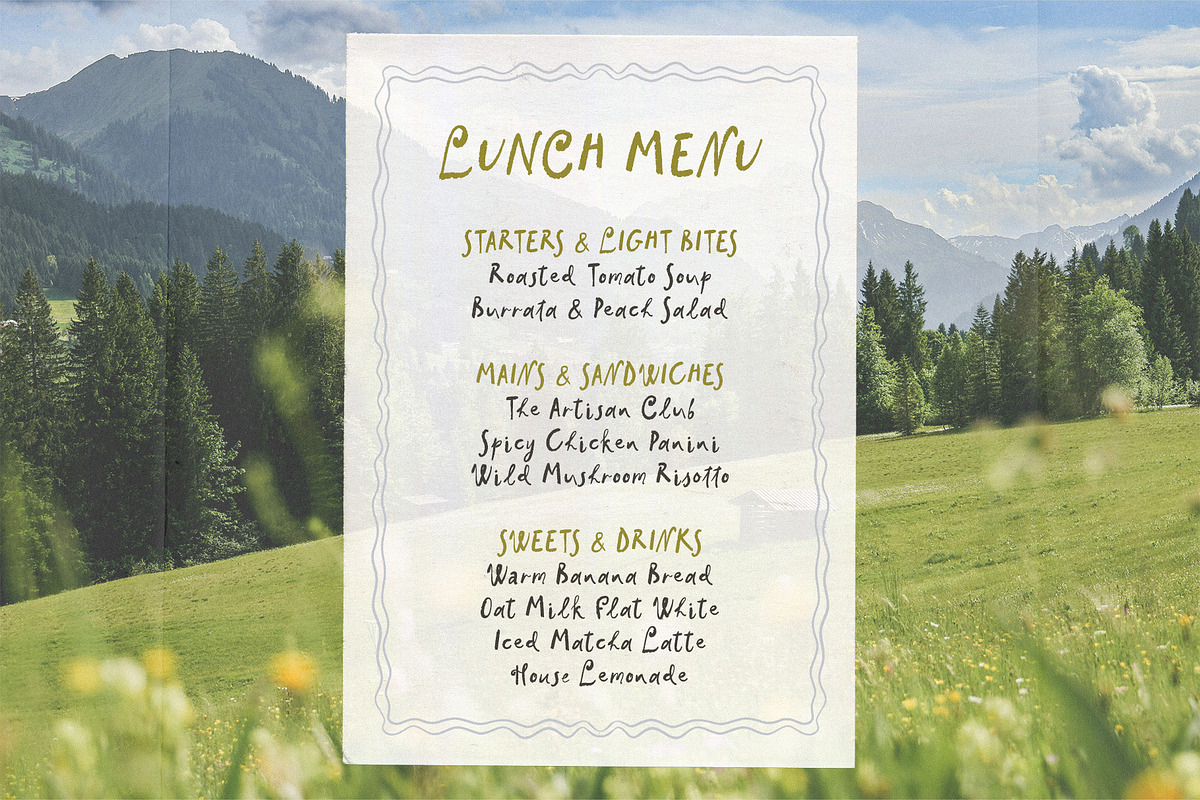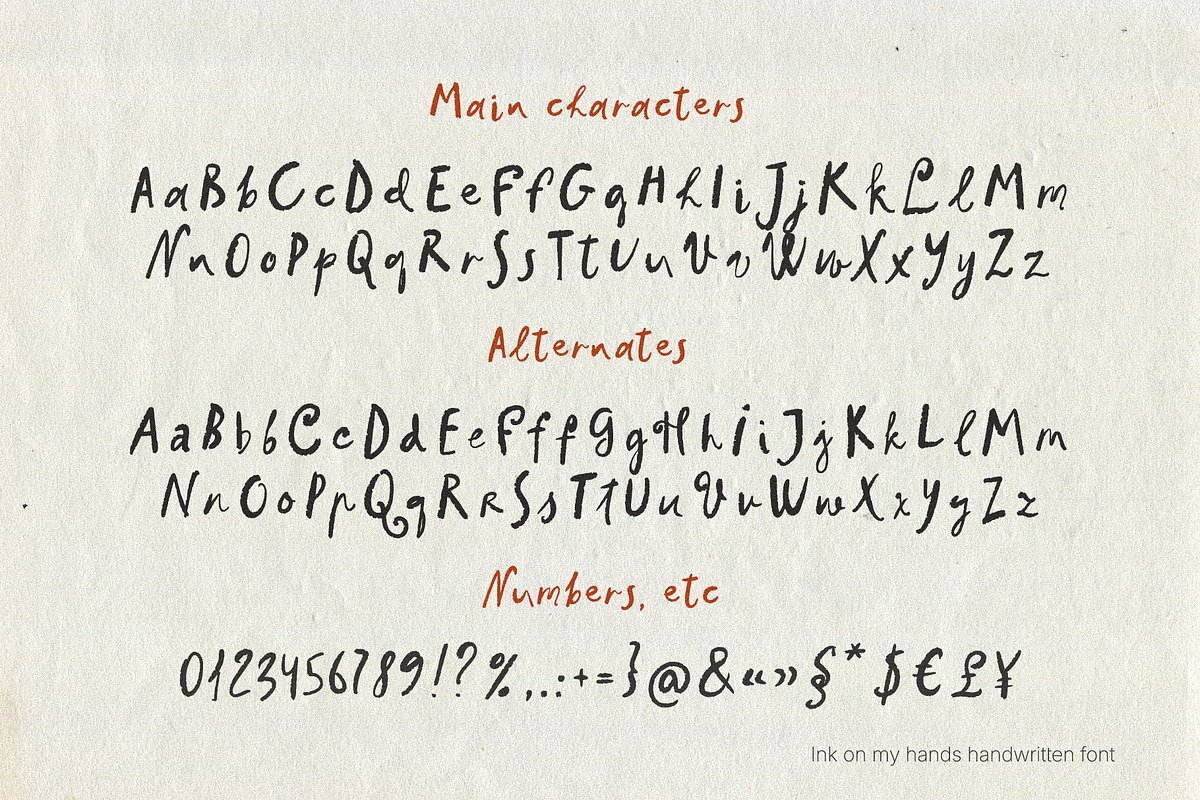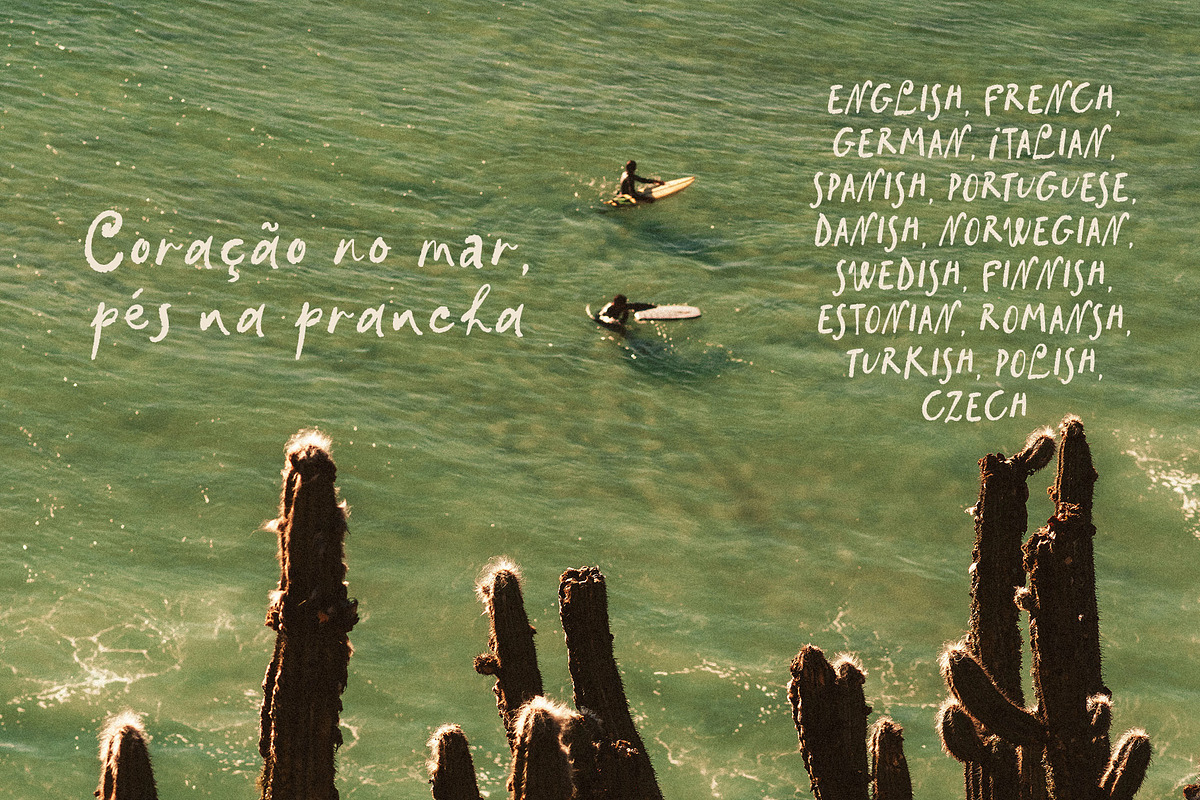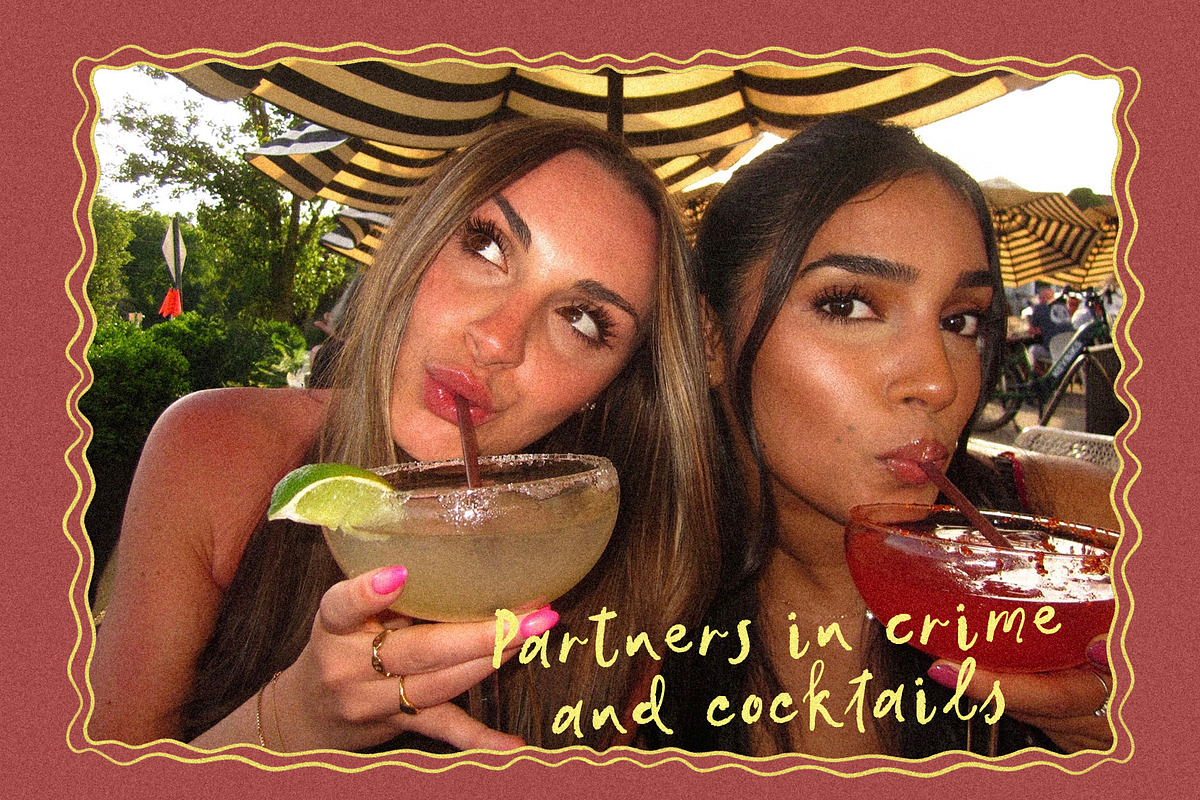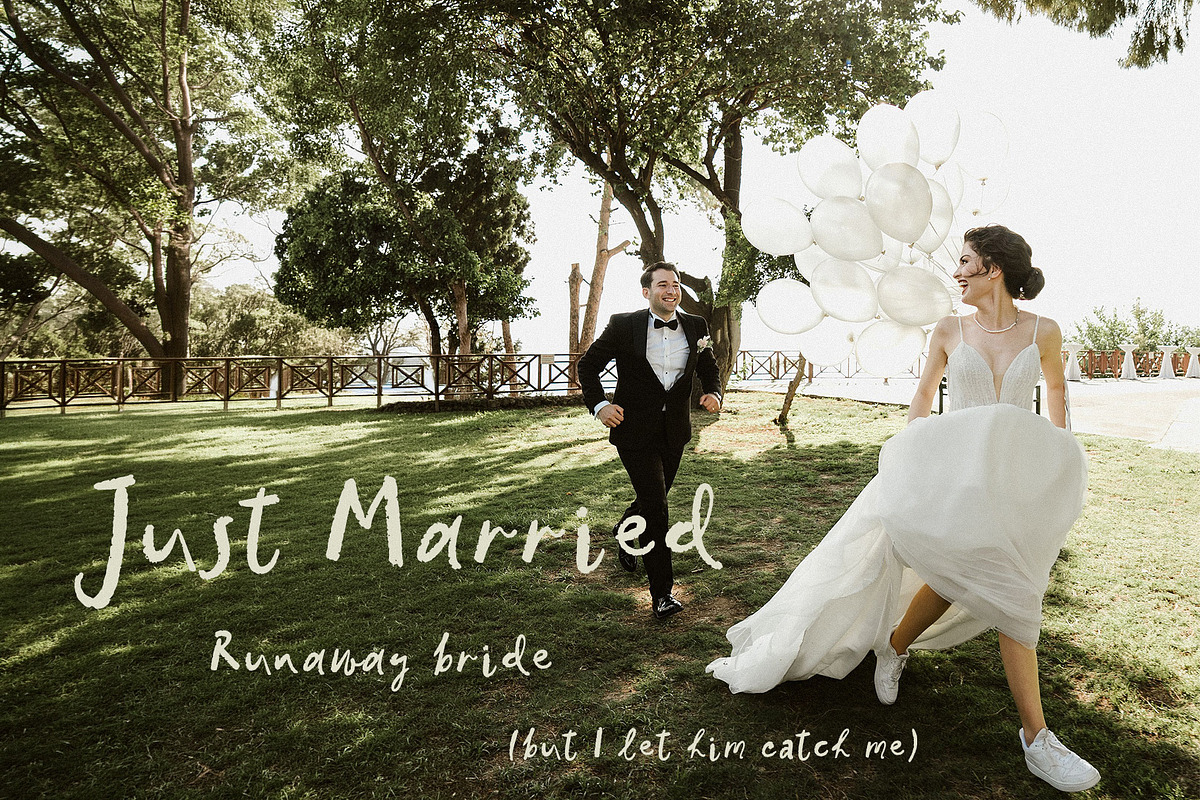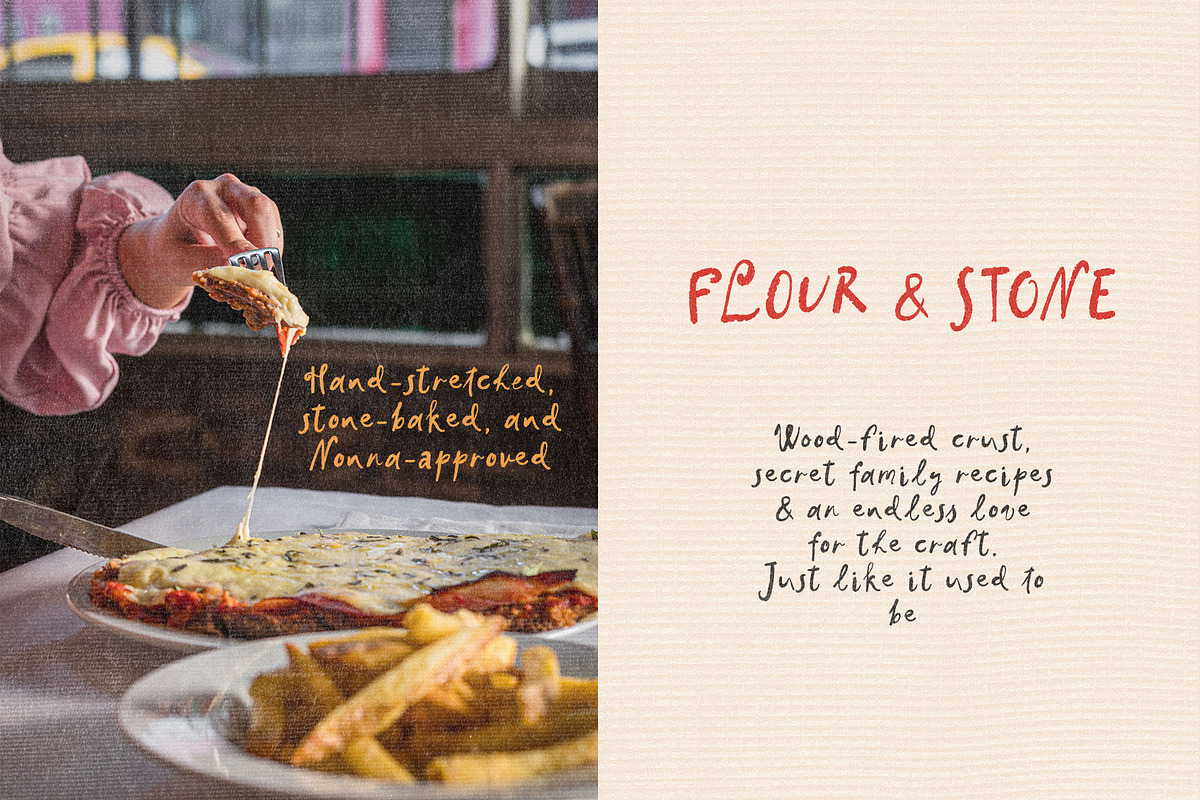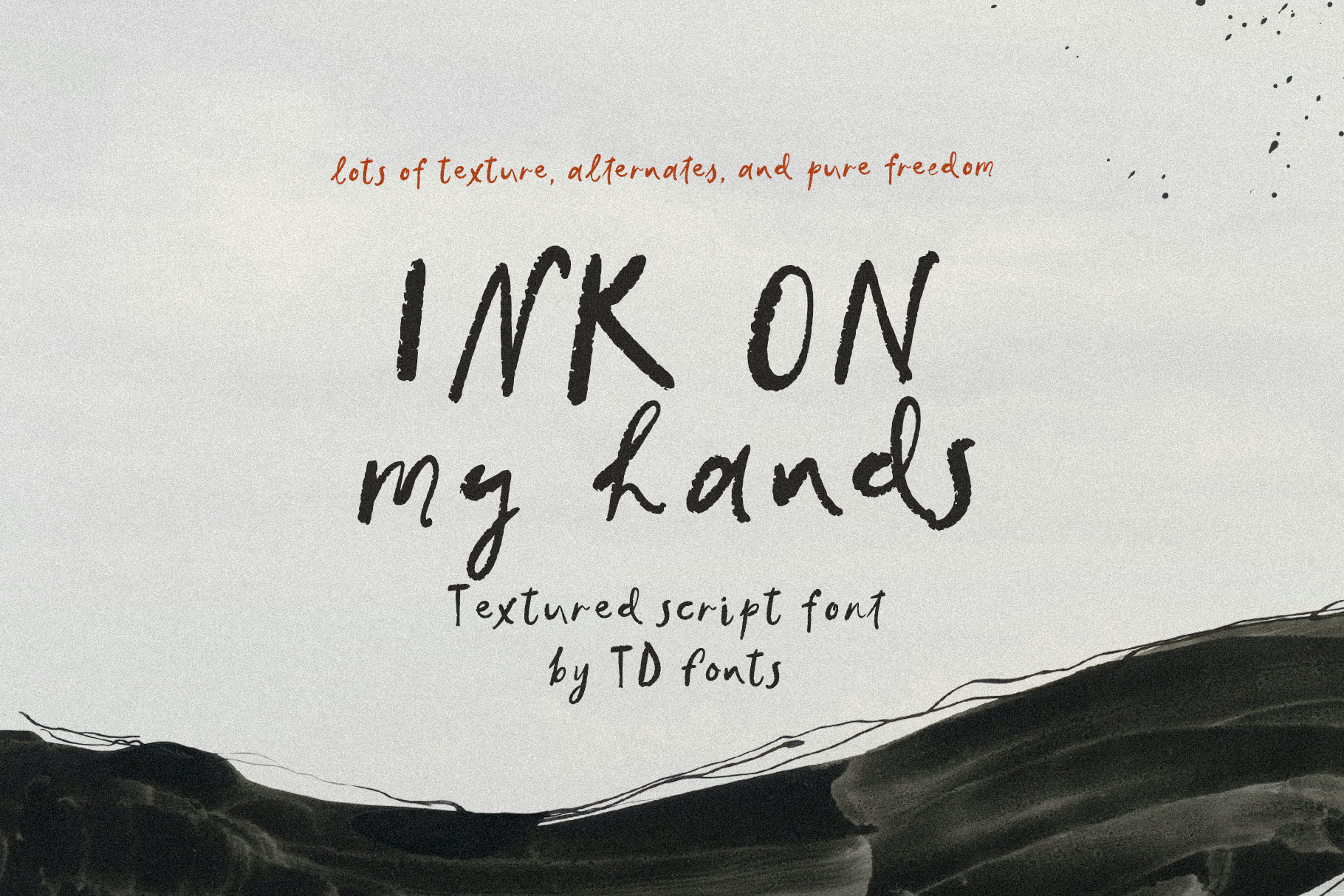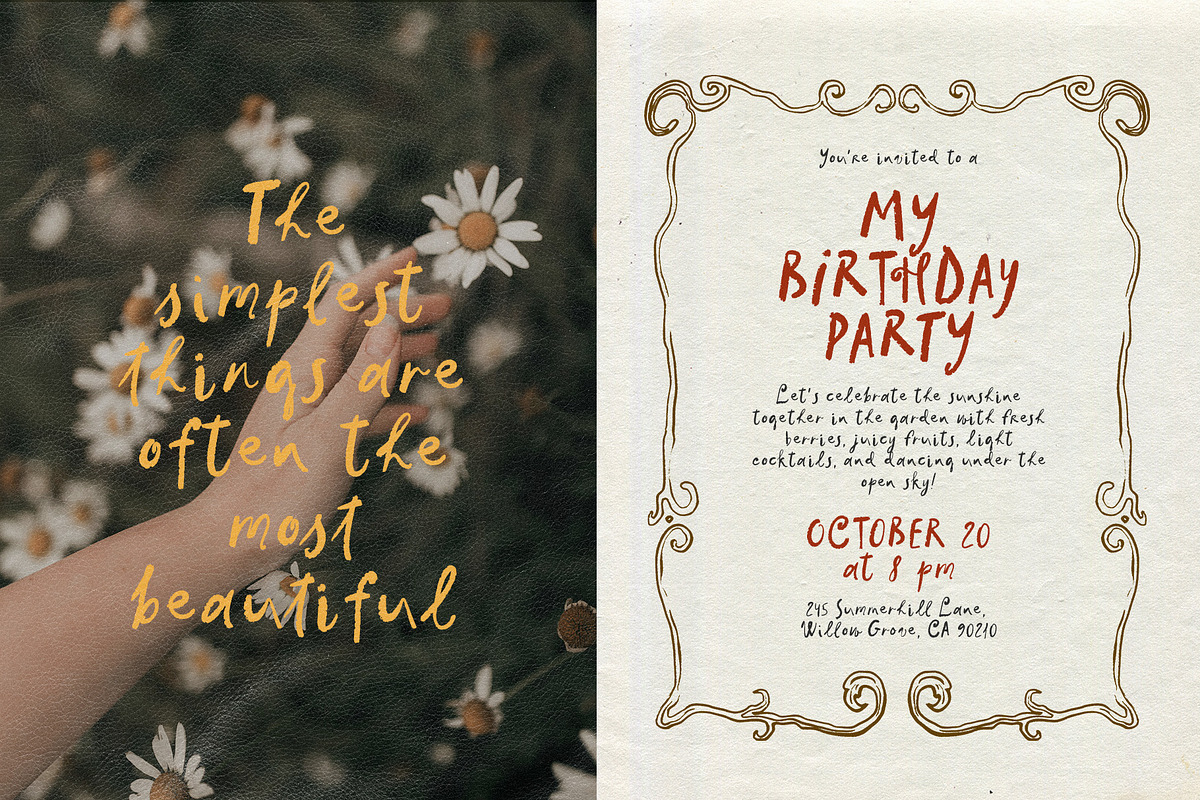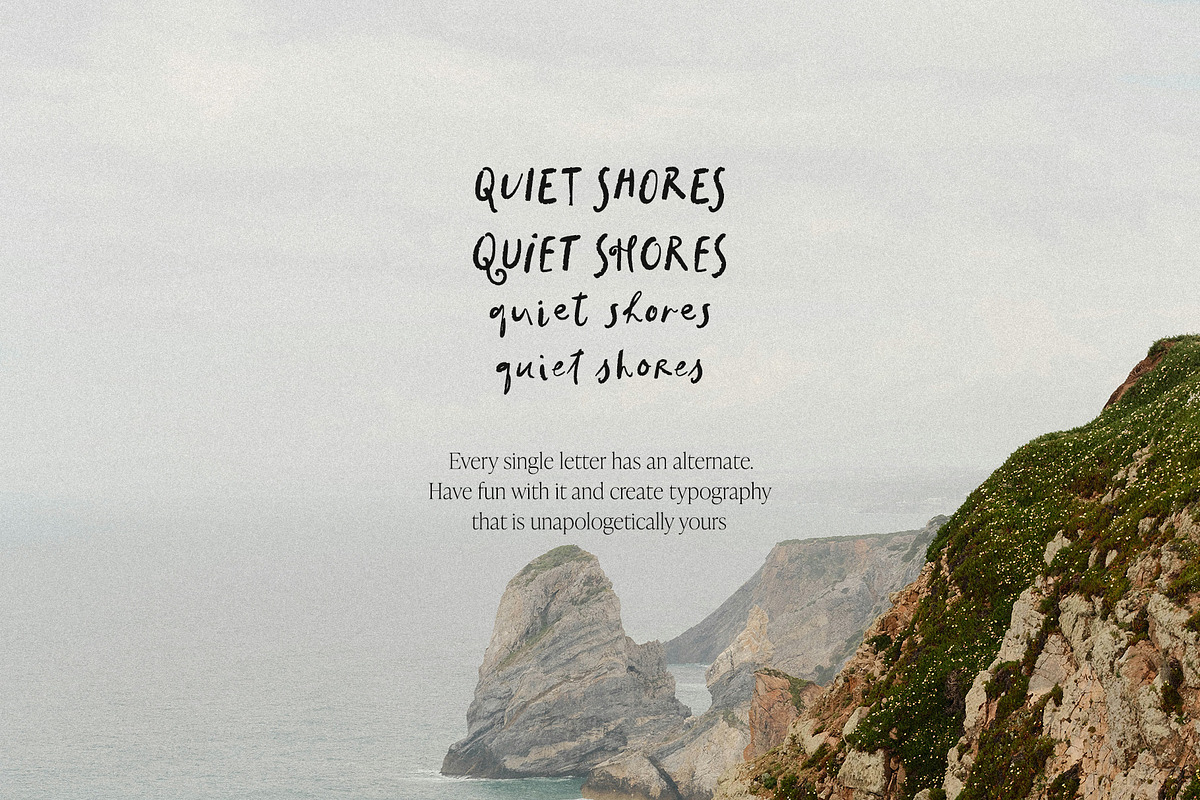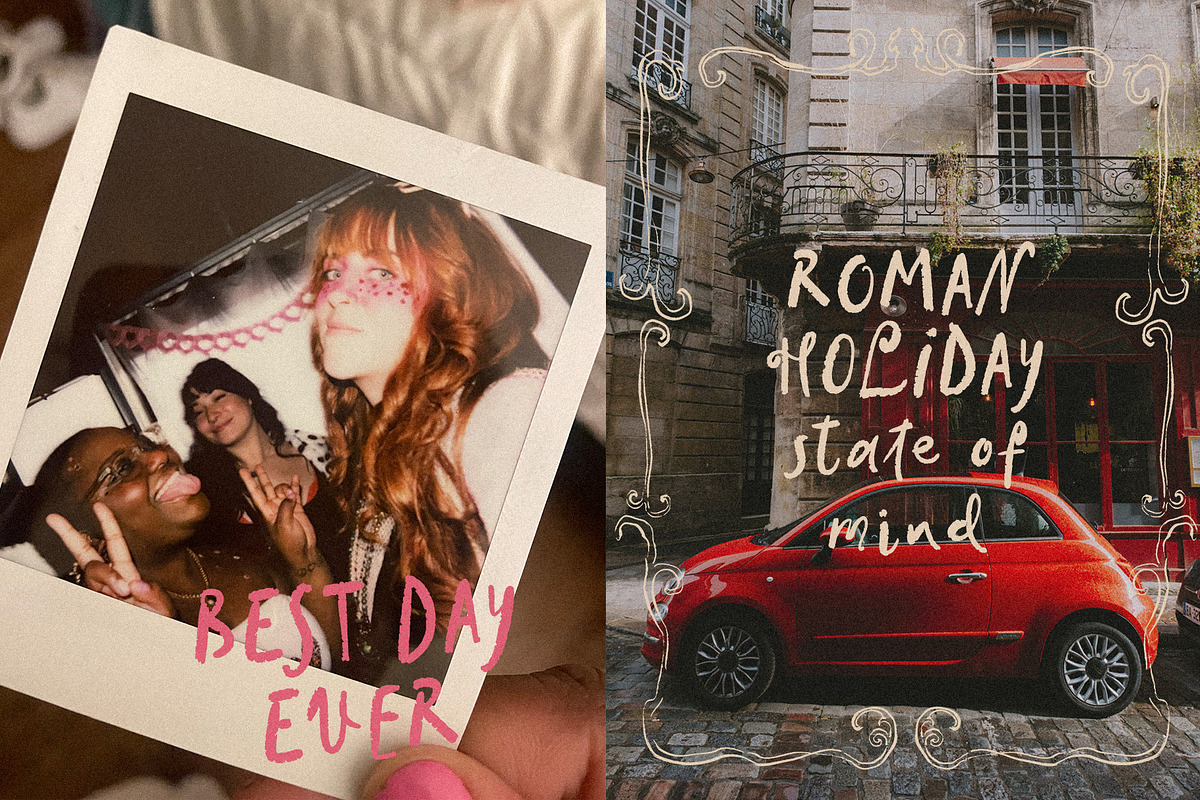
Ink on my hands script font messy
Ink on my Hands — cute messy textured handwritten script font with a raw, quirky aesthetic
Ink on my Hands is a bold, textured handwritten script font with a raw, quirky character — wonderfully messy, unapologetically authentic, and full of the rebellious energy of a fast-paced diary entry.
Drawn by hand with real ink and a textured pen, this font was carefully digitized to preserve the gritty, tactile feeling of ink bleeding into paper. It carries the energy of genuine, dynamic handwriting without feeling forced. The strokes have a rough edge, irregular baselines, and a natural, deliciously messy rhythm. Nothing here was engineered to be perfect. It breathes the way real ink does on a working artist's desk. A quiet grunge charm runs through every glyph, making it read completely current and effortlessly cool.
This is a font that thrives where design needs to feel personal, raw, and handcrafted, not generated. It carries a striking editorial layout and an indie magazine cover with the same expressive ease as organic packaging. It works brilliantly on boutique labels, bold social media quotes, and edgy fashion branding. Wherever a project calls for authentic texture, movement, and a touch of rebellious maker's energy — this font belongs there.
Alternate glyphs for every single letter — play around and create your own unique typography
Editorial headlines, indie zines & magazine layouts
Social media quotes, Instagram aesthetic posts & Pinterest graphics
Modern wedding invitations and greeting cards
Organic branding, artisan packaging & craft labels
Streetwear apparel, hang tags & fashion brand identities
Music album covers, gig posters & grunge typography
Websites, Canva templates & digital design with a raw, personal feel
Any project that calls for an authentic, wonderfully messy handmade charm
Font features:
Raw, inky script with natural rough edges and tactile texture
At least one alternate glyph for every letter — mix, match, and play to craft your own truly unique typography
Quirky, messy, and dynamically irregular hand-drawn character — imperfect in the most appealing, edgy way
The aesthetic: Ink on my Hands feels like a hasty note scrawled on a polaroid, a striking headline in an underground fashion zine, or the logo on a jar of handmade organic clay. It's the right font when a design needs to feel raw and intimate — not polished to clinical perfection, but made with genuine, unapologetic energy. Edgy without being unreadable. Messy without losing its structure. The kind of type that makes a design feel like it was made by someone who really meant it, leaving ink on their hands in the process.